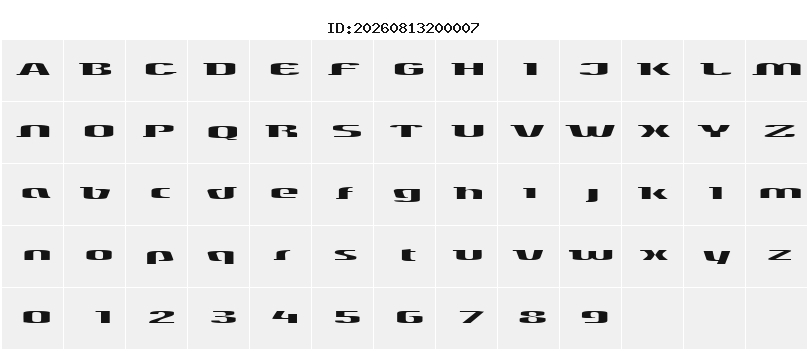
slick Preview
• Font Name: slick
• Font ID: Macromedia Fontographer 4.1.2 slick
• Full Font Name: slick
• Version: Macromedia Fontographer 4.1.2 20.06.2001
• PostScript Name: Slick
• Character Count: 102
About slick.ttf
slick.ttf is a modern, elegant sans-serif font designed for ultimate readability and visual harmony. Perfect for branding, headlines, web design, and print materials.